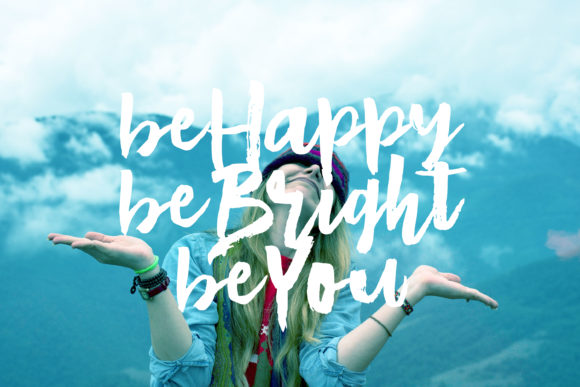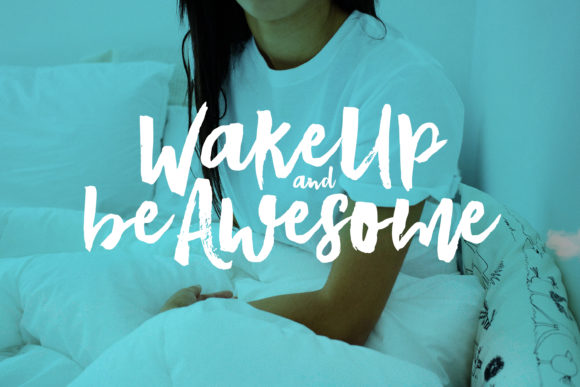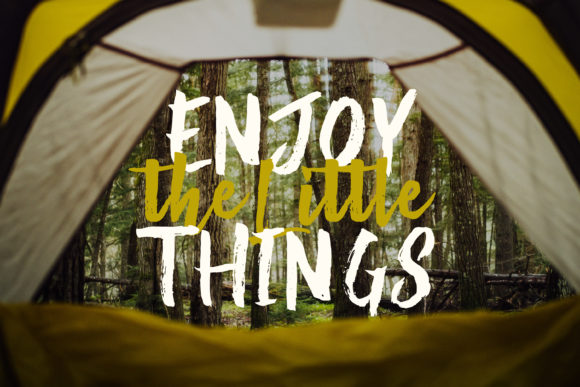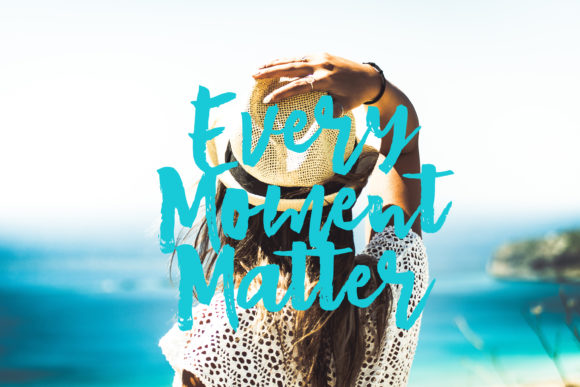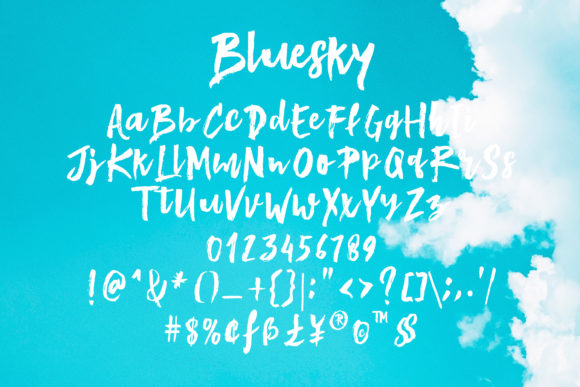
The Moment of Inspiration
Have you ever been in the midst of a design project, pouring over sketches and concept art, and suddenly, it all comes together in a burst of creativity? That’s exactly what happened when the team behind this article discovered the Bluesky Font. Its bold, yet sophisticated style was the missing piece to elevate their design from good to great.
As a masterfully designed script, the Bluesky Font is perfect for logos, branding, packaging design, and more. Its chunky and extended characters make it a standout choice for designers looking to add a touch of personality to their work.
With the Bluesky Font, designers can create truly unique and memorable designs that leave a lasting impression. Whether you’re a seasoned pro or just starting out, this font is a valuable addition to any design toolkit.
- Unique Characteristics: Bluesky Font features a unique blend of modern and vintage elements, with a distinctive “sky blue” hue that gives it a sense of depth and atmosphere.
- Style Options: Bluesky Font comes in multiple styles, including Regular, Bold, Italic, and Bold Italic, allowing designers to choose the perfect style to match their project’s tone and personality.
Bluesky Font Review
Overall, I was pretty excited to dive into the Bluesky Font. As a designer, I’m always on the lookout for fresh and unique fonts to add some personality to my projects. ✨ Let’s start with what works well:
- Unique Character Set: Bluesky Font has a quirky character set that immediately caught my attention. The font has a mix of rounded and angular shapes, making it perfect for adding some visual interest to your designs.
- Clean Lines: The font’s clean lines and minimal ornamentation make it easy to read, even at small font sizes.
- High Legibility: I was impressed by the font’s high legibility, making it perfect for body text and headings.
Now, let’s talk about the limitations: ⚠️
- Limited Versatility: While Bluesky Font is perfect for modern and minimalist designs, it may not be the best choice for traditional or formal designs.
- Not Ideal for Small Text: While the font is highly legible, it may not be the best choice for very small text sizes, as the characters can become difficult to read.
Overall, I would give Bluesky Font 4 out of 5 stars. While it has its limitations, it’s a fantastic addition to any designer’s toolkit. With a little creativity, Bluesky Font can add some much-needed personality to your designs.
Bluesky Font is ideal for:
- Creating eye-catching headings and titles.
- Designing modern and professional presentations and documents.
- Adding a touch of elegance and sophistication to your designs.
Alternatives to Bluesky Font for Designers
Montserrat is a sans-serif font that is highly legible and versatile. It is a great choice for digital design, especially for headings and titles. Montserrat has a similar geometric feel to Bluesky Font, but with a more modern and sleek aesthetic.